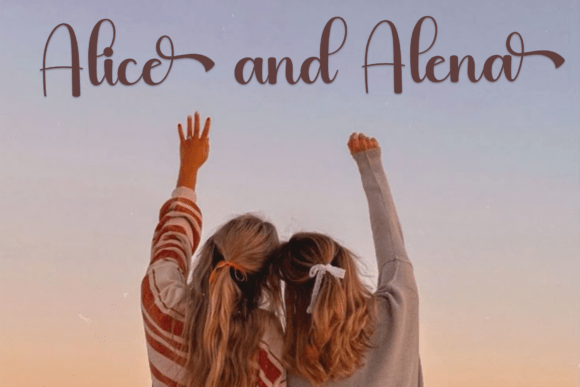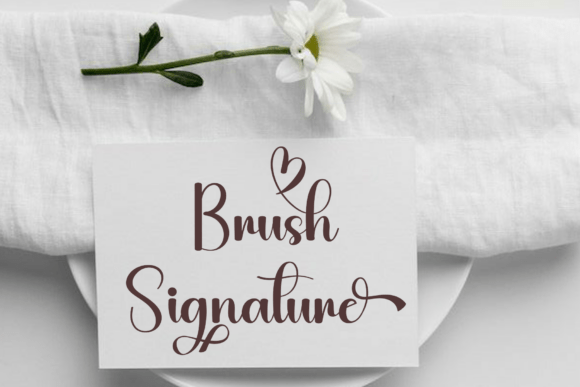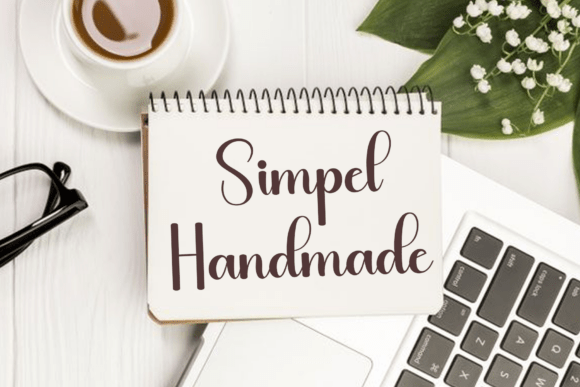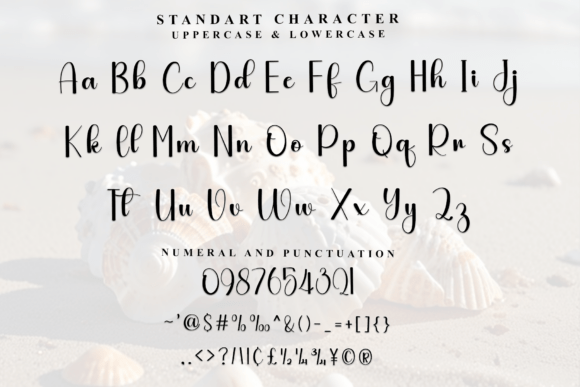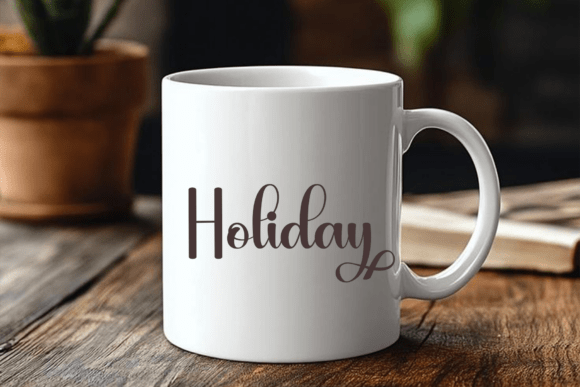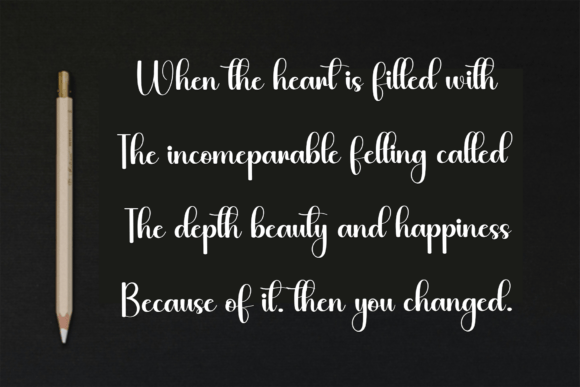
Bakery Cake Font: The Perfect Addition to Your Holiday Designs
The holiday season is upon us, and with it comes the need for festive and merry designs that capture the spirit of the season. If you’re a designer or crafter looking for a typeface that embodies the whimsy and enchantment of the holidays, look no further than the Bakery Cake font. This delightful font is perfect for adding a touch of magic to your designs, and in this article, we’ll explore its features and benefits in more detail.
Bakery Cake is a decorative font that is specifically designed to evoke the feeling of the holiday season. Its playful and whimsical elements make it perfect for use in greeting cards, gift tags, and other holiday-themed projects. With its curly and swirly lines, Bakery Cake adds a touch of enchantment to your designs, making them stand out from the crowd.
Whether you’re a professional designer or a crafter looking to add a personal touch to your holiday gifts, Bakery Cake is the perfect choice. Its ease of use and versatility make it suitable for a wide range of projects, from digital designs to handmade crafts. With Bakery Cake, you can create stunning holiday-themed designs that are sure to impress.
What Can You Use Bakery Cake For?
Bakery Cake is a versatile font that can be used for a wide range of holiday-themed projects, including:
- Greeting cards: Create beautiful and festive greeting cards for your loved ones using Bakery Cake.
- Gift tags: Add a personal touch to your gifts with custom gift tags featuring the Bakery Cake font.
- Holiday-themed projects: Use Bakery Cake to create stunning holiday-themed projects, such as party invitations, decorations, and more.
- Digital designs: Bakery Cake is perfect for use in digital designs, such as social media graphics, blog posts, and more.
Why Choose Bakery Cake?
So why choose Bakery Cake over other holiday-themed fonts? Here are just a few reasons:
- Unique and festive design: Bakery Cake has a unique and festive design that is sure to capture the spirit of the holiday season.
- Versatile: Bakery Cake can be used for a wide range of projects, from digital designs to handmade crafts.
- High-quality: Bakery Cake is a high-quality font that is designed to deliver stunning results.